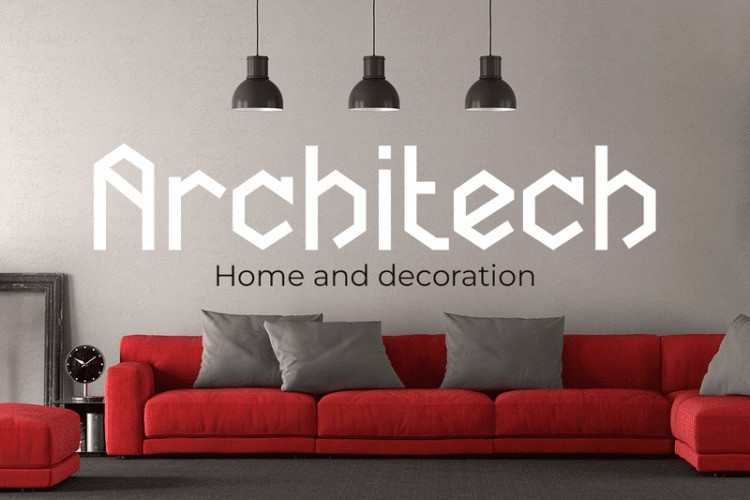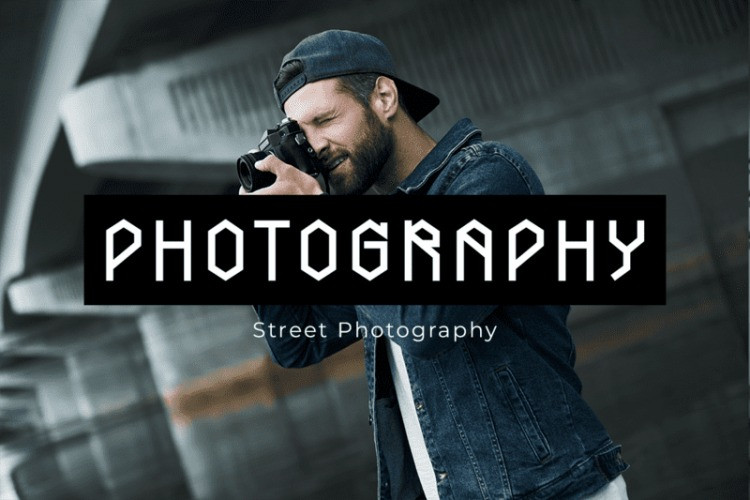
Echoshift Font
ECHOSHIFT Font , the perfect display font for fashion-forward designs that demand attention. This futuristic font is the perfect choice for fashion websites, blogs, and social media accounts that want to make a bold statement.
With its sleek and modern design, ECHOSHIFT is a great choice for movie poster fonts, as well as other designs that require a futuristic or high-tech look. This digital font is perfect for any project that requires a sleek, modern, and futuristic feel.
Whether you’re designing a fashion website, creating a movie poster, or just need a font that will make your designs stand out, ECHOSHIFT is the perfect choice. Its clean lines and futuristic style are sure to grab the attention of your audience and make your designs more engaging.